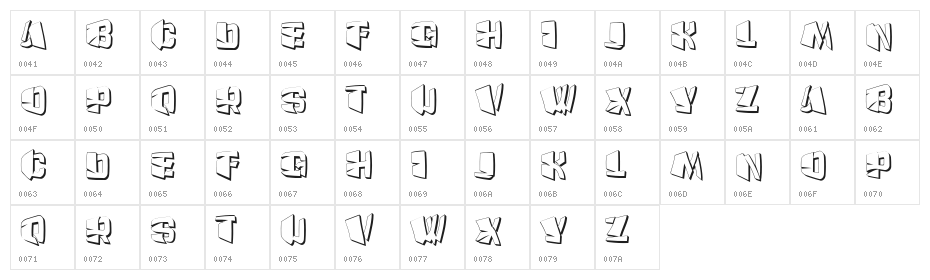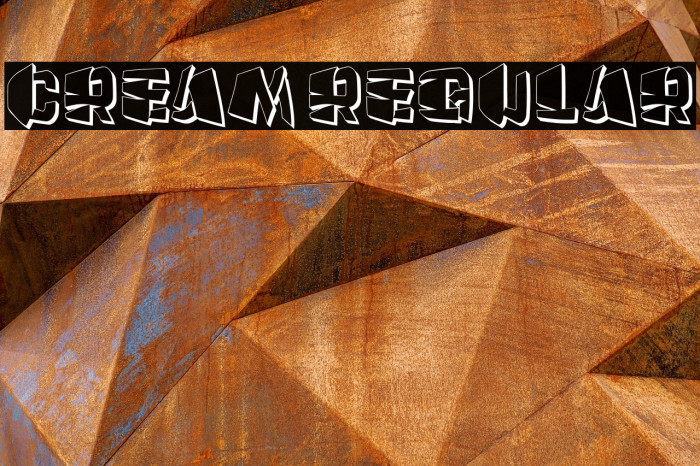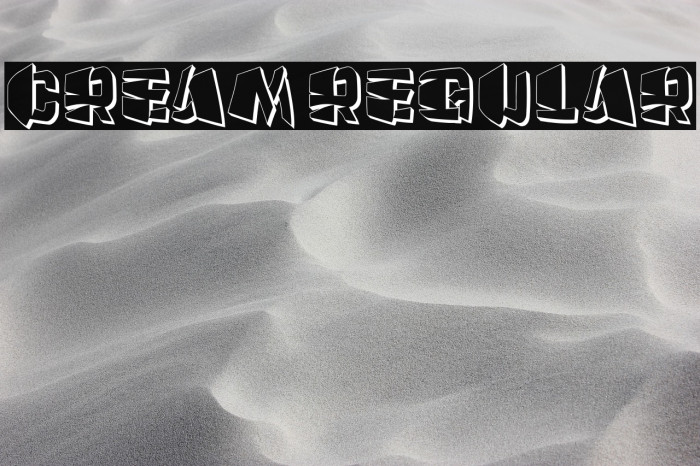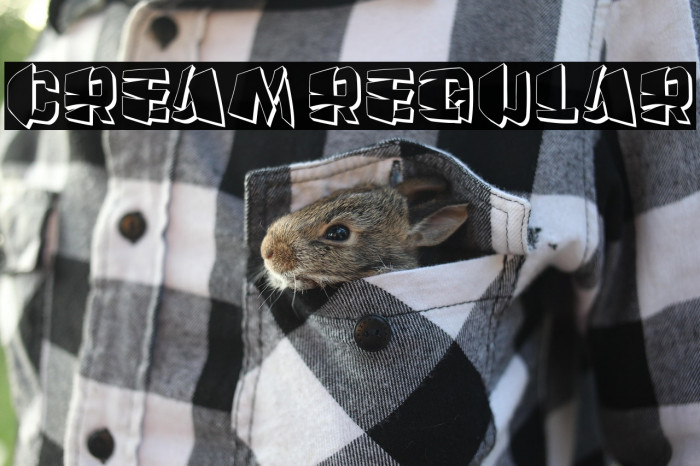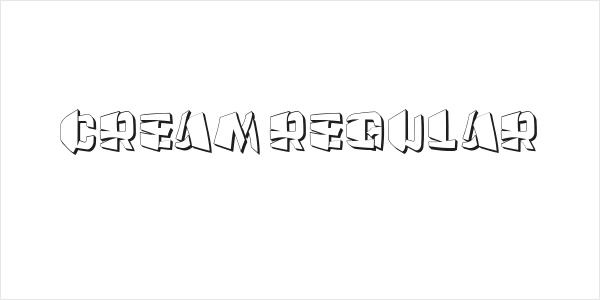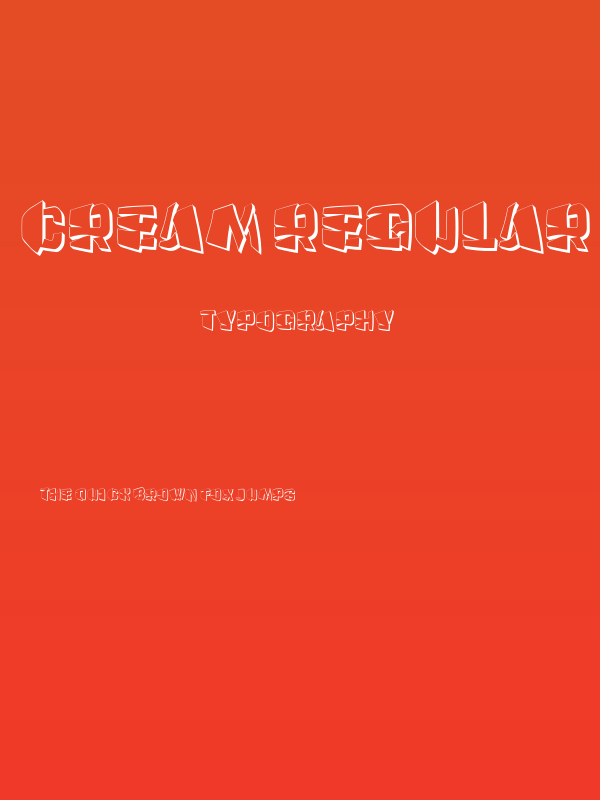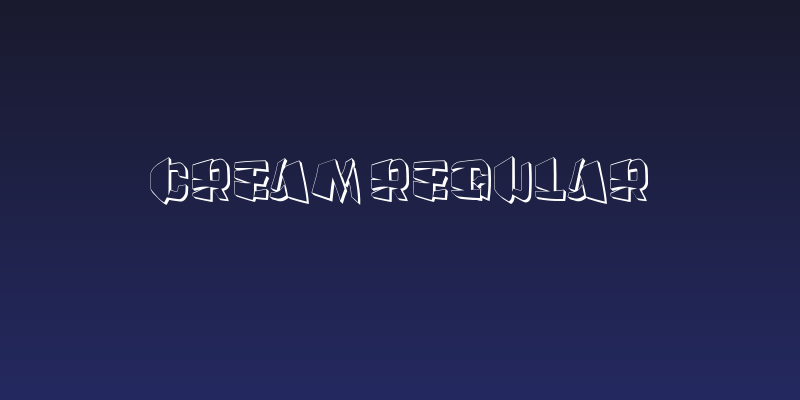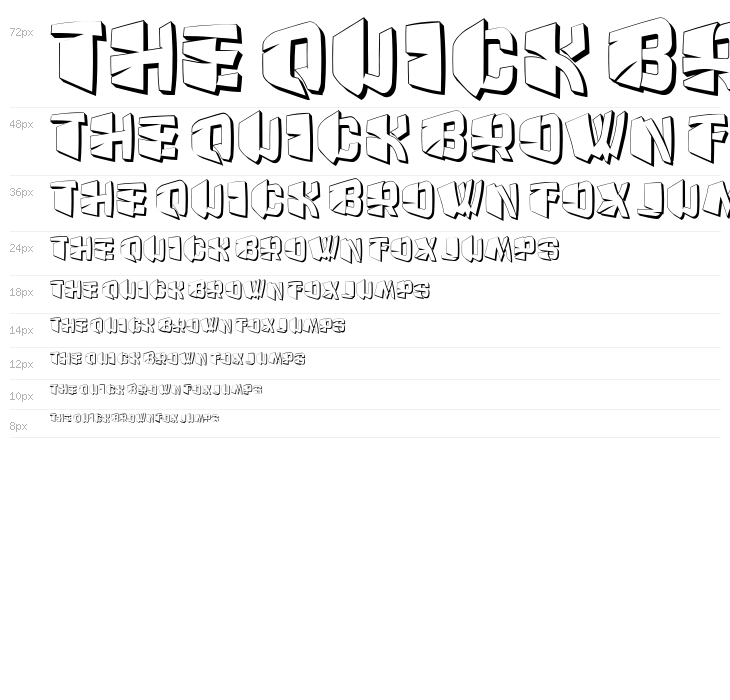
Cream Regular Font
Cream Regular Description
This font features a bold and dynamic 3D effect, with each character appearing as if it is carved out of a solid block. The letters have sharp, angular edges and a playful, graffiti-like style that gives them a sense of movement and energy. The font is highly decorative, making it ideal for eye-catching designs. The uppercase and lowercase letters maintain a consistent style, with the numbers and special characters following suit. The overall appearance is both modern and urban, suitable for projects that require a bold statement.
| Overall Style | Modern, Urban |
| Proposed Projects | Ideal for street art designs, urban-themed posters, music album covers, and bold branding projects. |